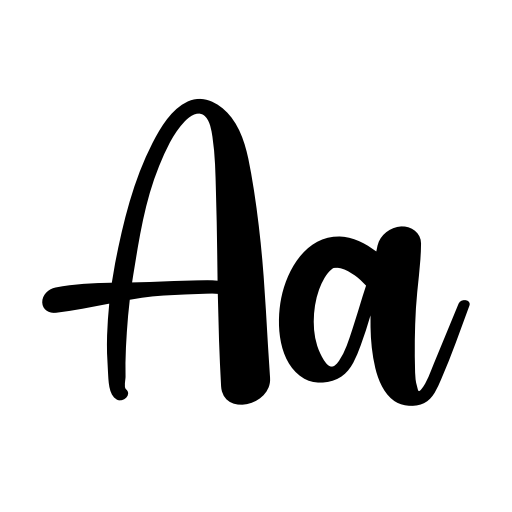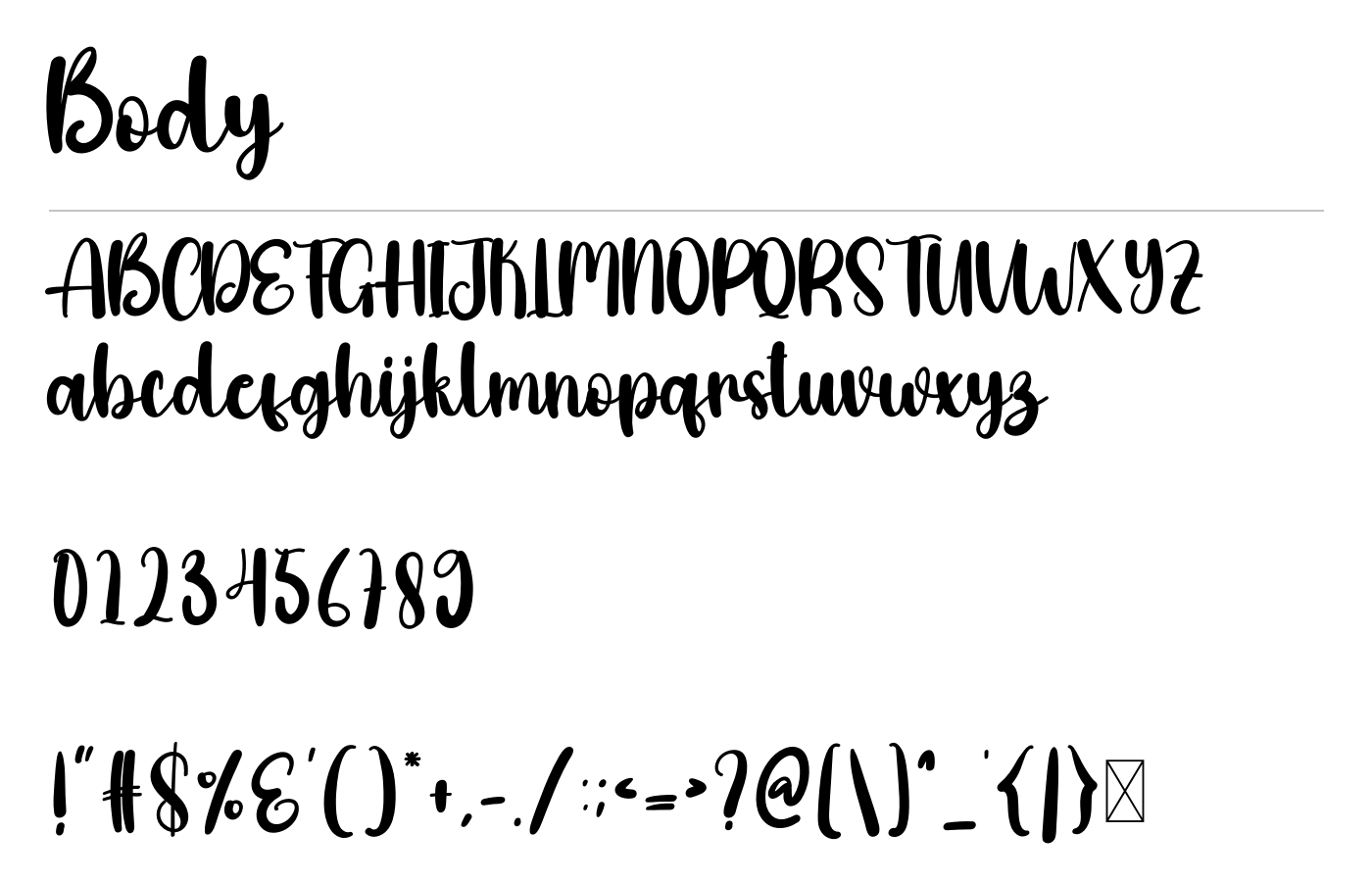
Body Font is a lively and playful script typeface with bold, rounded strokes and a friendly, hand-drawn feel. Its casual yet confident style makes it perfect for branding, packaging, and headlines where a warm and approachable personality is desired. This font works especially well for creative projects that need a personal touch without sacrificing legibility.
Body Font
About Body Font